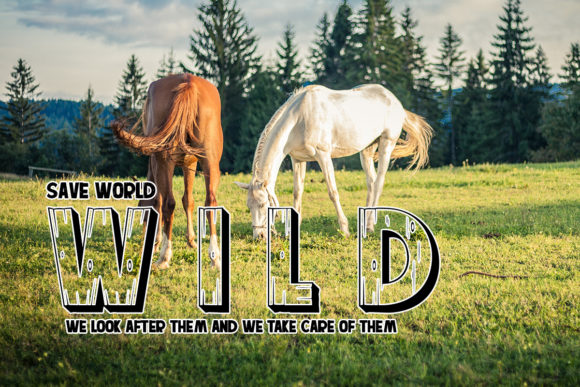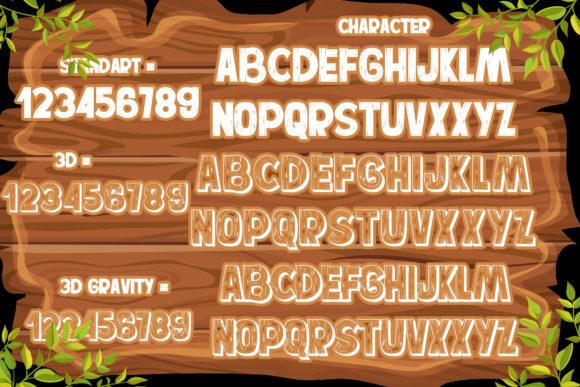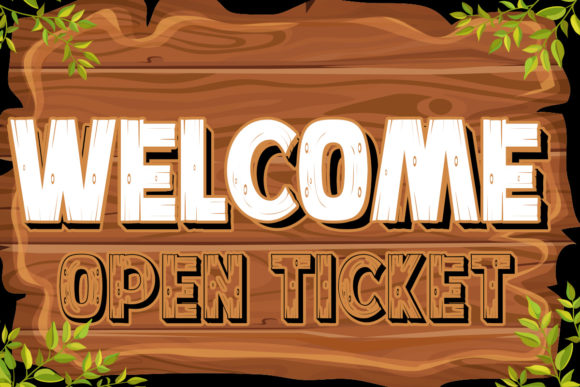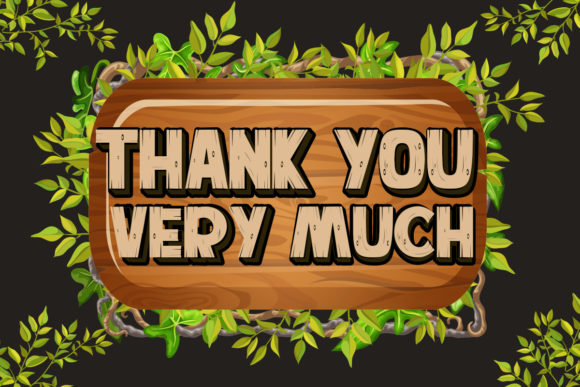
Introduction to Jungle Wild Font Font
Fonts play a crucial role in design, and the Jungle Wild Font font is a typeface that brings both character and versatility to any project. Whether you’re working on a branding project, a website, or a print design, the Jungle Wild Font font offers a unique style that can elevate your work.
Jungle Wild is a cool, thick lettered yet friendly display font.
Organic and natural, this font will instantly make your designs stand out Have fun with this beautiful font and explore its endless variations.
The Jungle Wild Font font is more than just a typeface – it’s a design tool that helps you communicate your message with style and clarity. Its unique character set and versatile design make it suitable for a wide range of applications, from elegant invitations to bold headlines.
With its carefully crafted letterforms and balanced proportions, the Jungle Wild Font font ensures readability and visual appeal across all mediums.
The Jungle Wild Font font stands out with its unique design, exceptional readability, and versatility across various design applications.